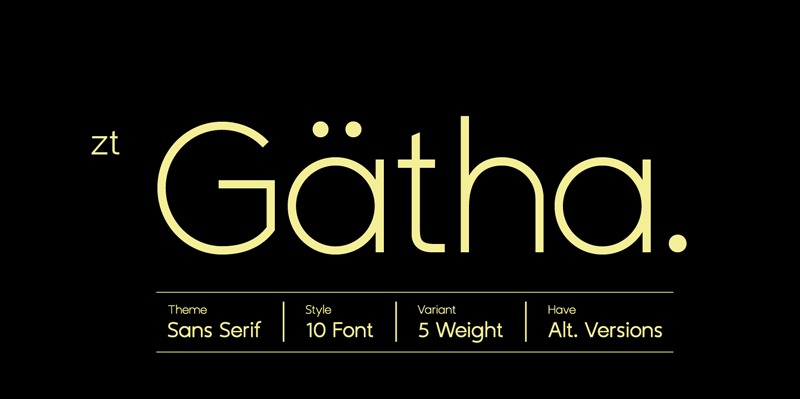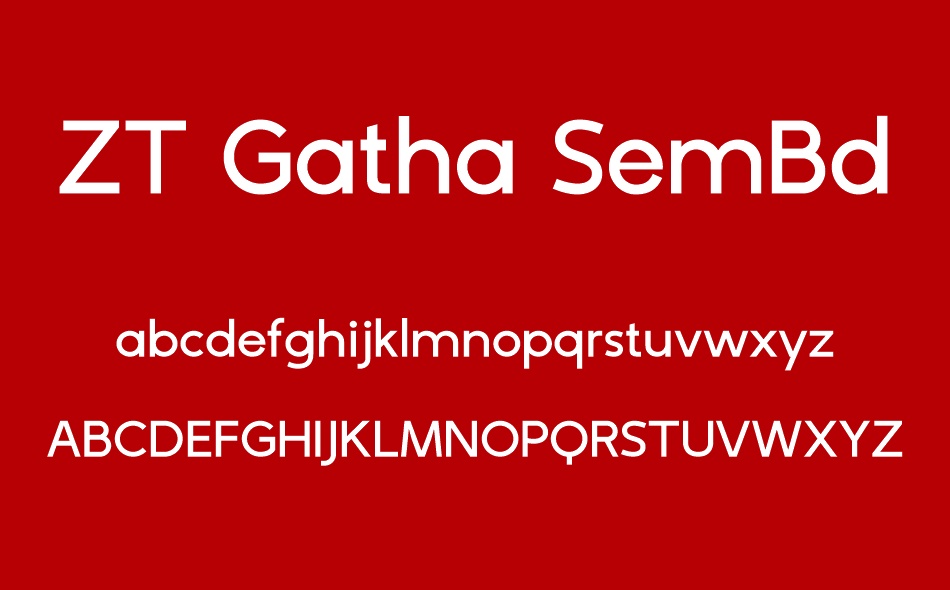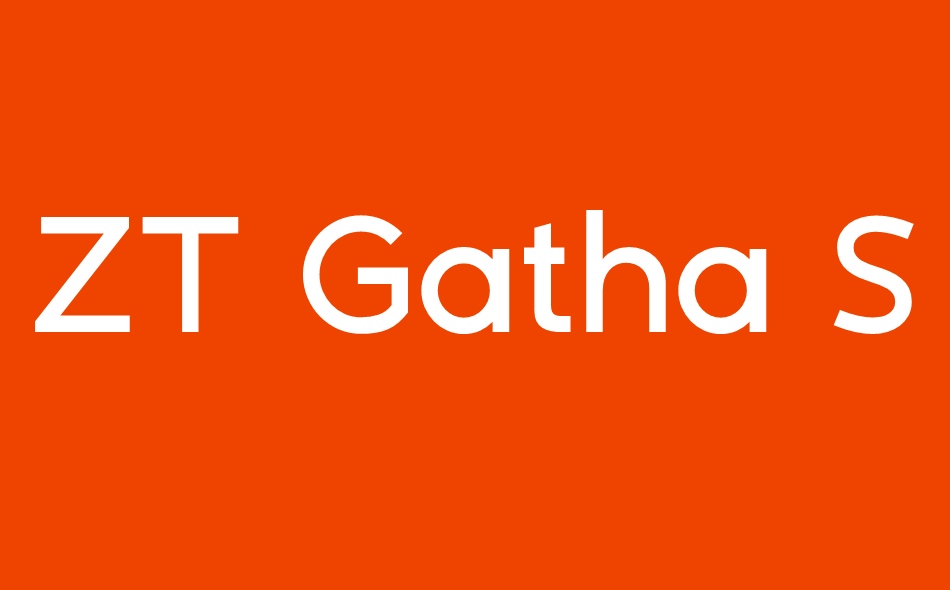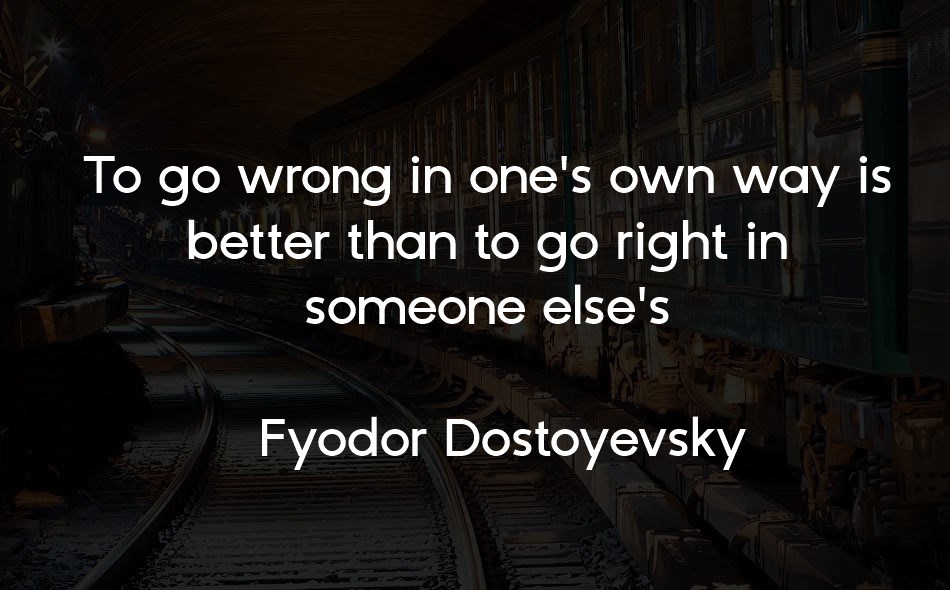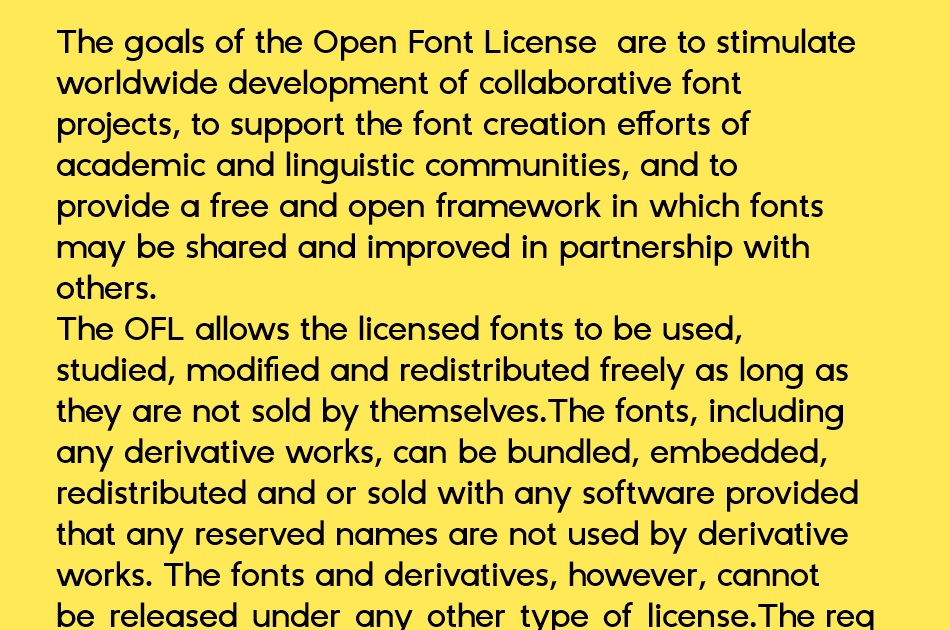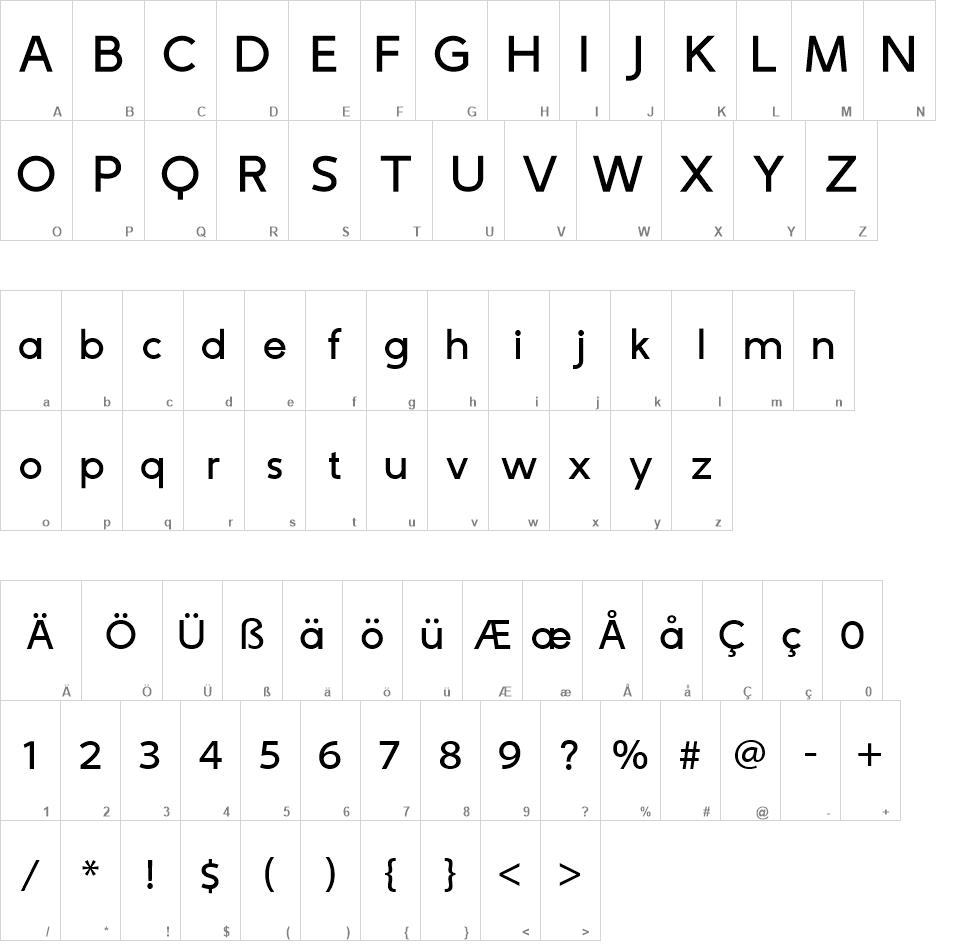
ZT Gatha font
ZT Gatha is a continuation of the "Gatha Duo font family", which focuses only on more complete variations of sans serif, this font has two variants, one of which is a normal sans font and the other is unique in that it minimizes edges. of each letter produces a unique character with a smoothly curved groove.